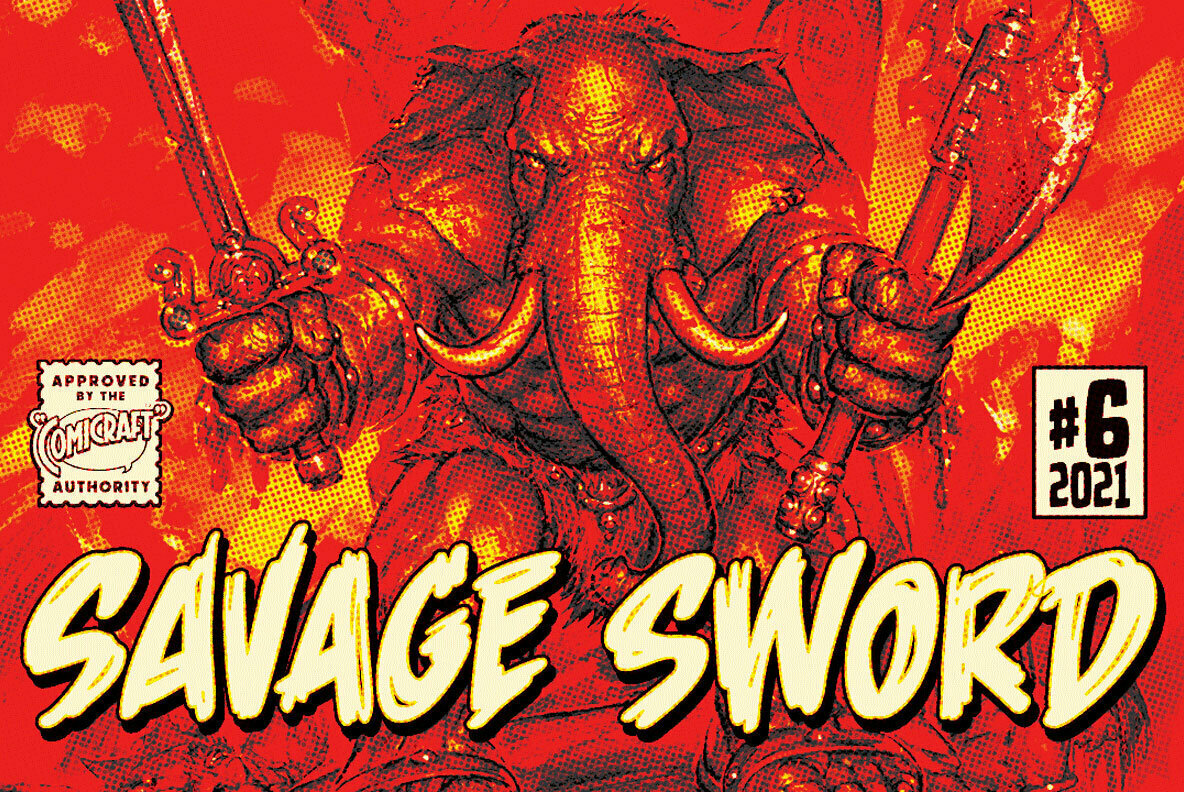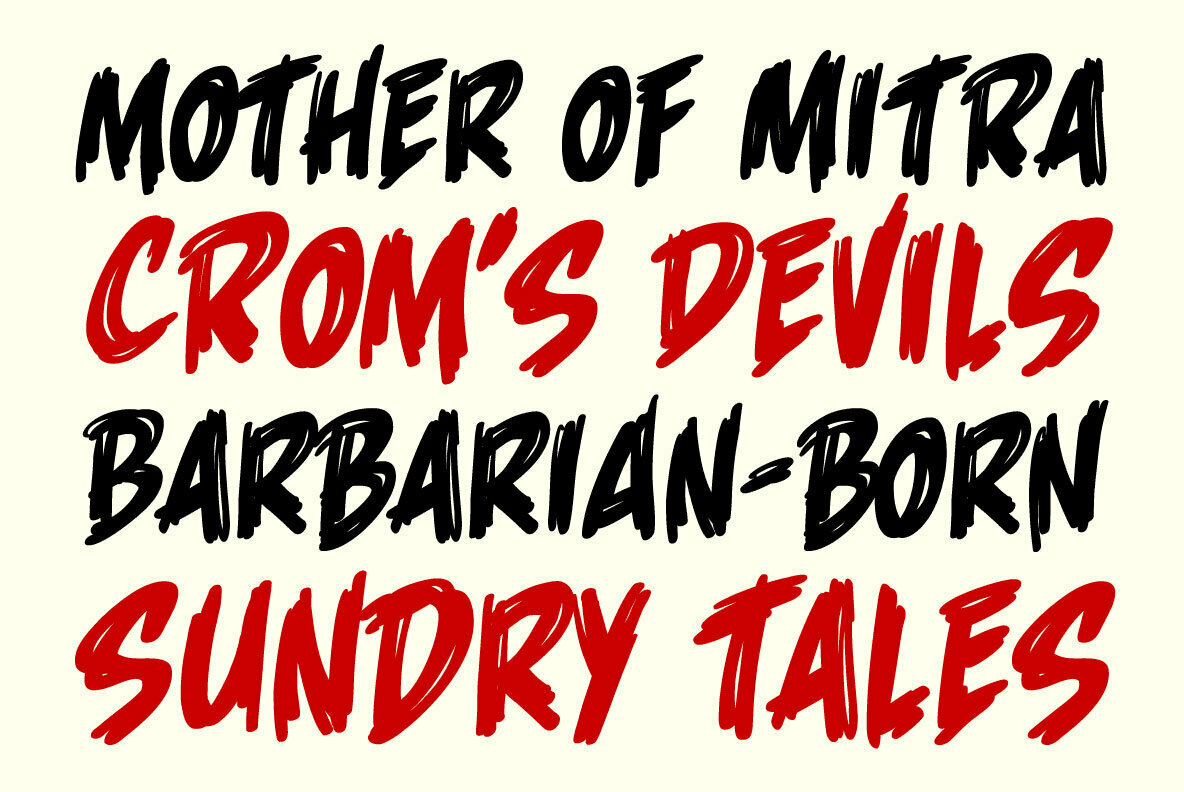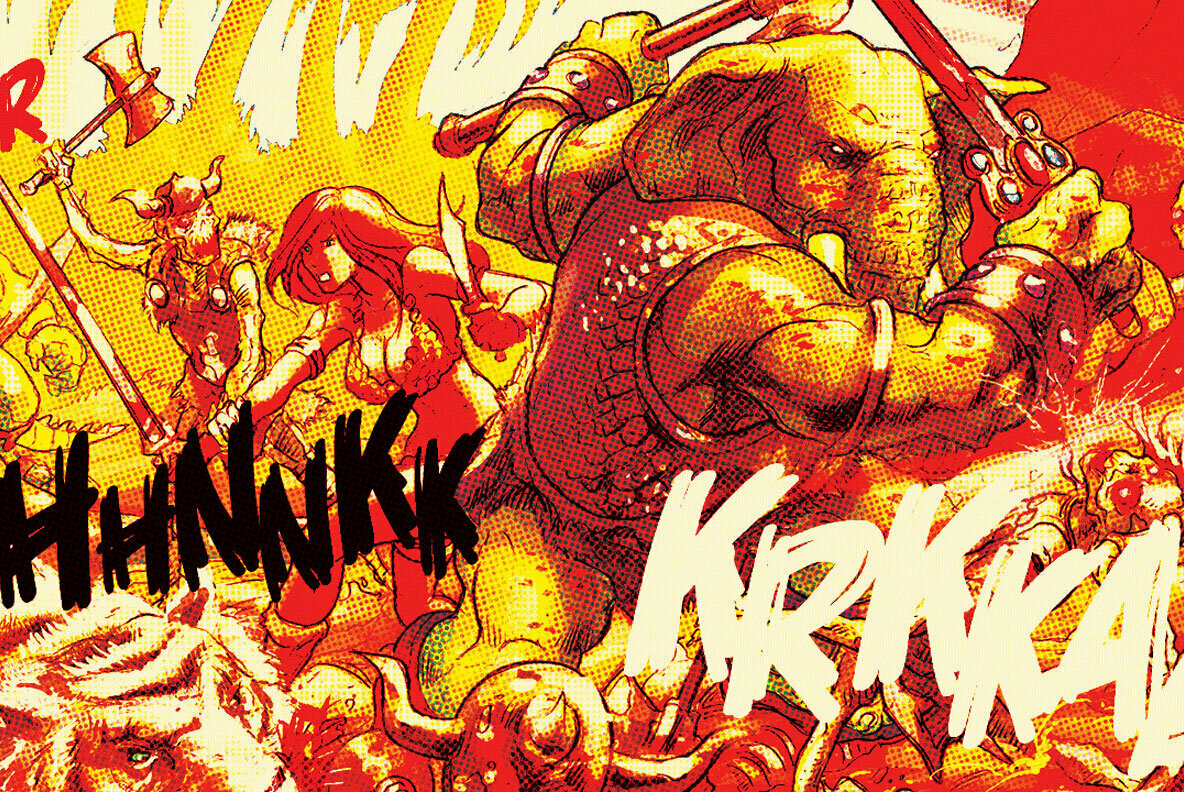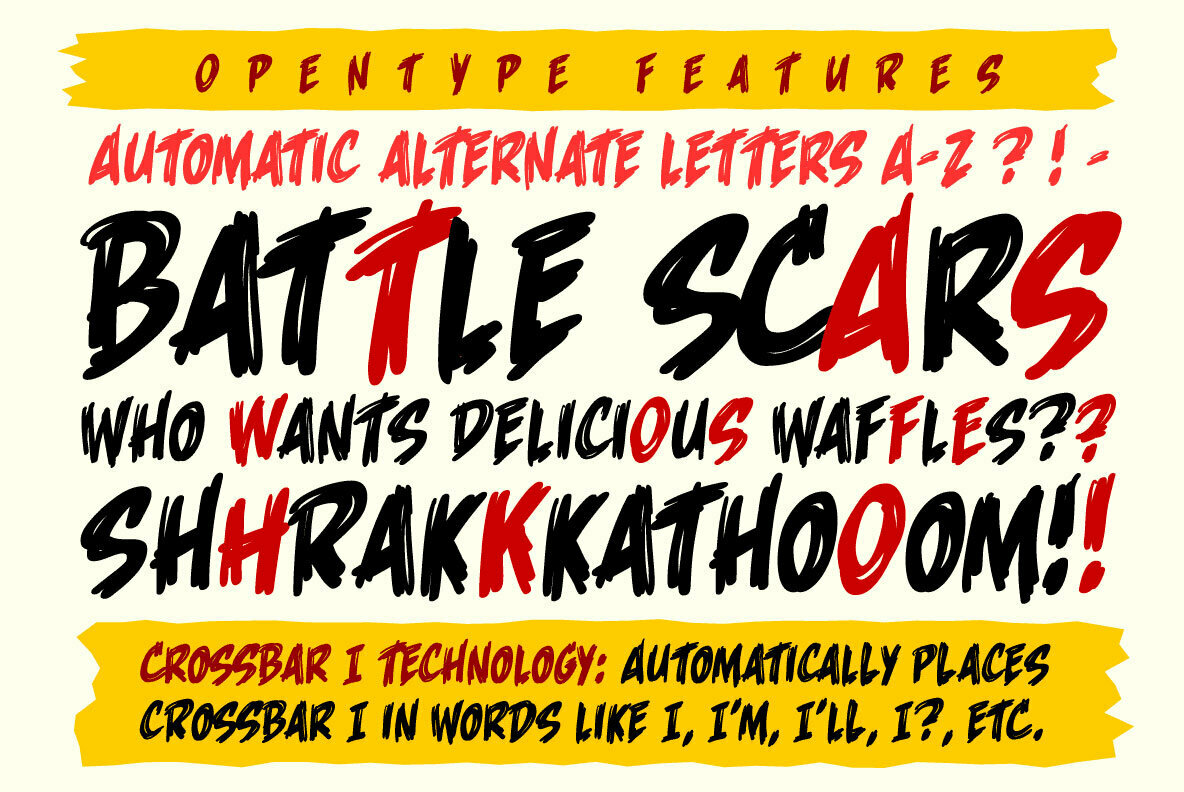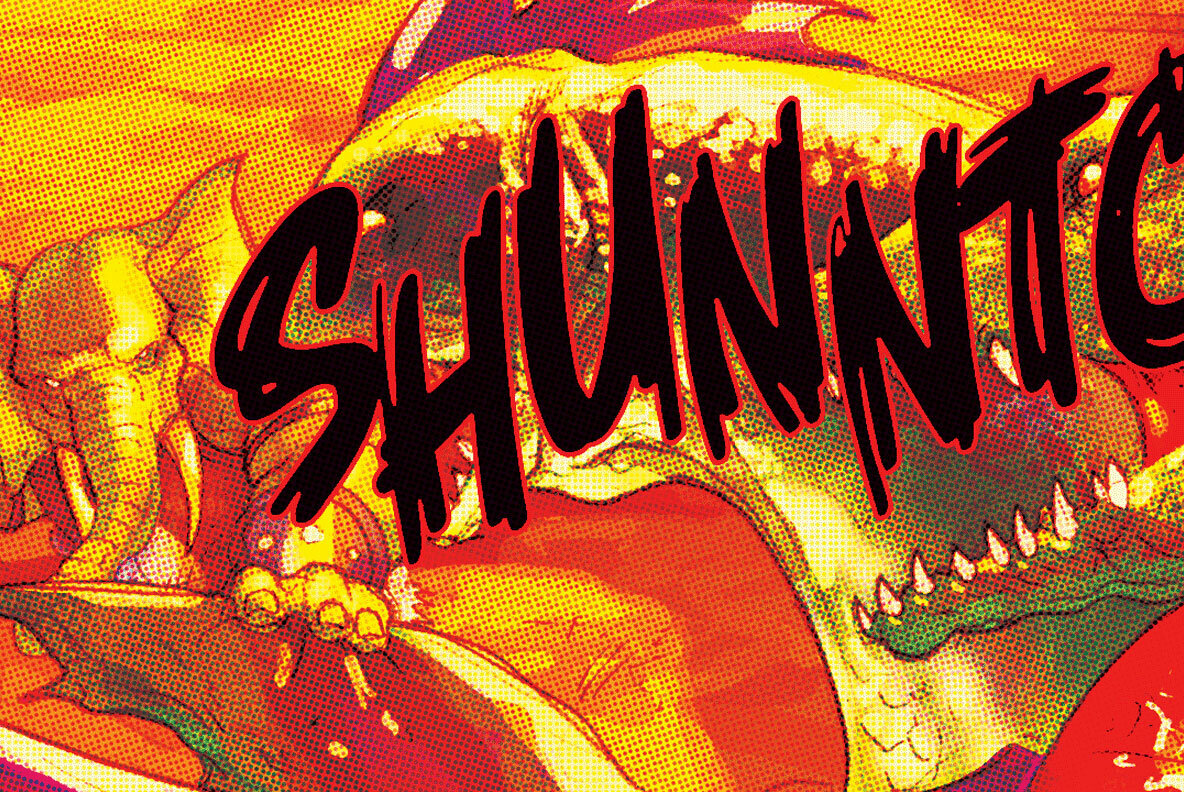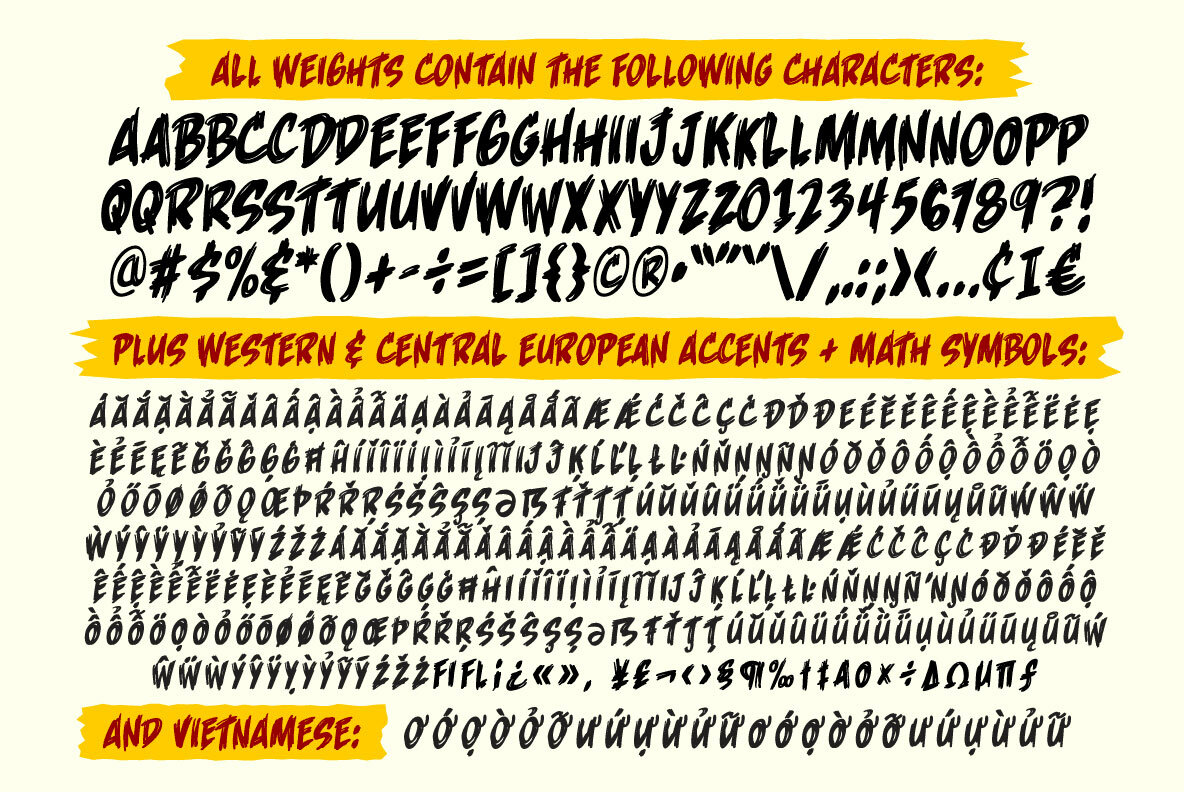
Savage Sword Font
New Font: Hack! Slice! Cut Your Fiendish Foes Into Pieces with Comicraft’s Savage Sword! Then Tell Your Savage Tales to All and Sundry and Even Those You’ve Sundered. Savage Sword Is a Single Weight Font with Two Sets of Automatically Alternating Uppercase Characters, Plus Support for Western & Central Europe and Vietnamese.